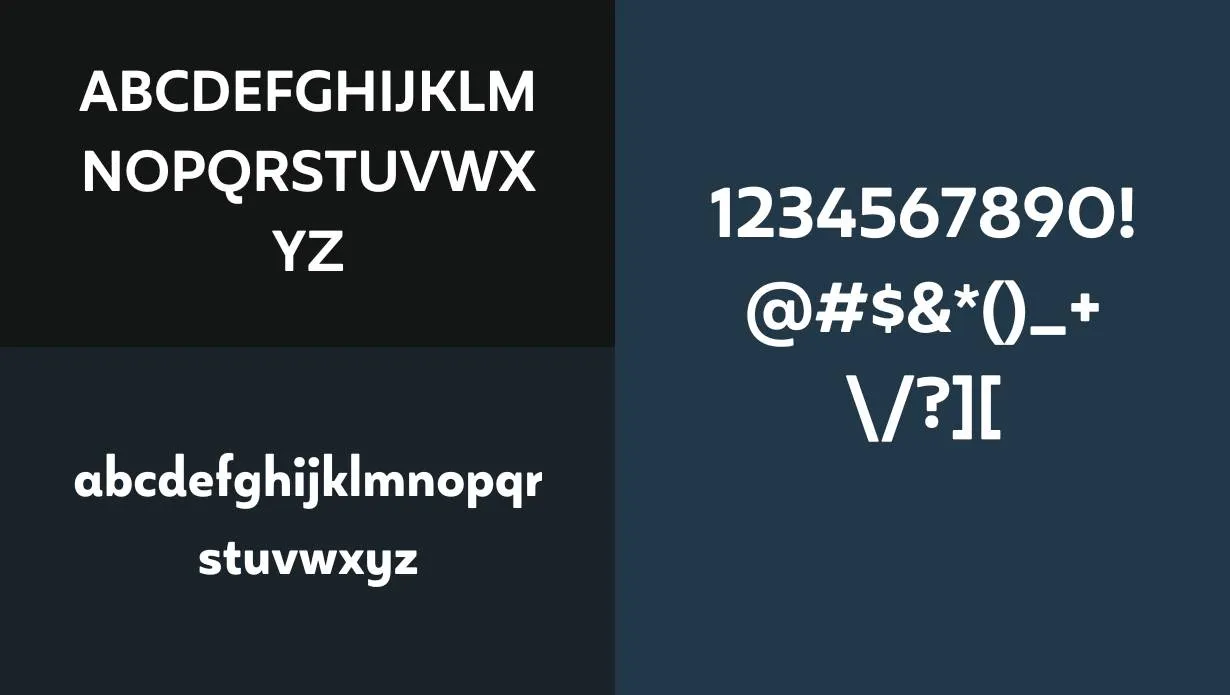
Blauth font carries a bold and strong presence. It feels modern and impactful. With Adobe Photoshop, this font can create striking posters or branding elements.
Using CSS can add a sleek and powerful look to website headers. In Canva, it’s ideal for making attention-grabbing banners or bold quotes. Enhance the appeal of your design project by combining this font with another distinctive typeface, such as the SF diego sans font.
| Name | Blauth Font |
| Designer | Sofia Mohr |